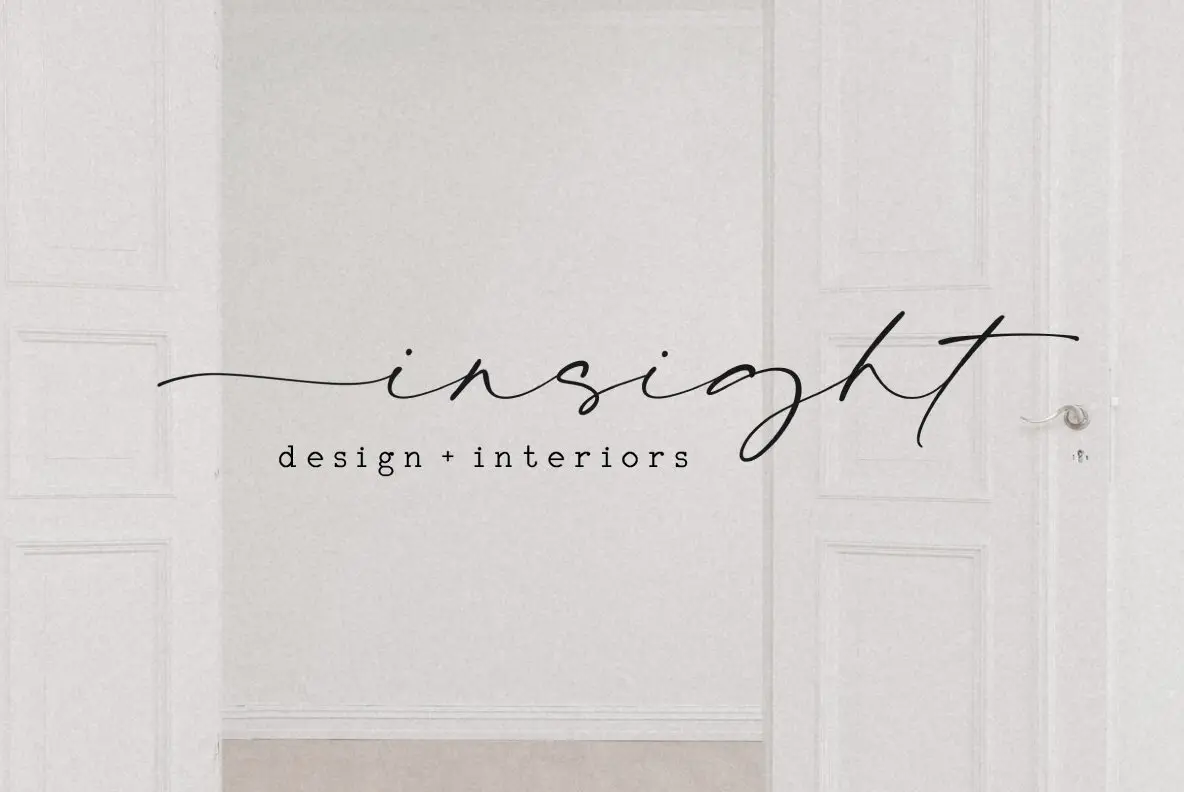
Mirabella Font . The mirabella script is a new hand scripted typeface. Mirabella is a free font for personal use created by fanastudio. Mirabella font | dafont.com english français español deutsch italiano português. Mirabella is licensed under the following terms: Includes 3 font styles from $12. Not free for commercial use. Download and install the mirabella font by pinisiart. Font meme is a fonts & typography resource. Individual styles from $15.00 usd. Available for both personal and commercial use. The mirabella font has been downloaded 254 times. Mirabella font download is available free from fontget. Mirabella font family was designed by pavel larin and published by larin type co. The “fonts in use” section features posts. Font family by emily spadoni.
Mirabella Font Mirabella font download is available free from fontget. The “fonts in use” section features posts. Font meme is a fonts & typography resource. The mirabella script is a new hand scripted typeface. The mirabella font has been downloaded 254 times. Not free for commercial use. Mirabella font family was designed by pavel larin and published by larin type co. Mirabella is licensed under the following terms: Individual styles from $15.00 usd. Mirabella font download is available free from fontget. Available for both personal and commercial use. Download and install the mirabella font by pinisiart. Includes 3 font styles from $12. Mirabella is a free font for personal use created by fanastudio. Font family by emily spadoni. Mirabella font | dafont.com english français español deutsch italiano português.
Mirabella Font · 1001 Fonts Mirabella Font Mirabella font | dafont.com english français español deutsch italiano português. The mirabella script is a new hand scripted typeface. Mirabella font download is available free from fontget. Download and install the mirabella font by pinisiart. The “fonts in use” section features posts. Mirabella is licensed under the following terms: Available for both personal and commercial use. Mirabella is a free. Mirabella Font.
Mirabella Font Download and install the mirabella font by pinisiart. Mirabella font download is available free from fontget. The “fonts in use” section features posts. The mirabella script is a new hand scripted typeface. Available for both personal and commercial use. Mirabella is licensed under the following terms: Mirabella font family was designed by pavel larin and published by larin type co.. Mirabella Font.
Mirabella Script Stunning Script Fonts Creative Market Mirabella Font Mirabella is licensed under the following terms: The “fonts in use” section features posts. Mirabella font family was designed by pavel larin and published by larin type co. Font meme is a fonts & typography resource. Includes 3 font styles from $12. Not free for commercial use. The mirabella font has been downloaded 254 times. Available for both personal and. Mirabella Font.